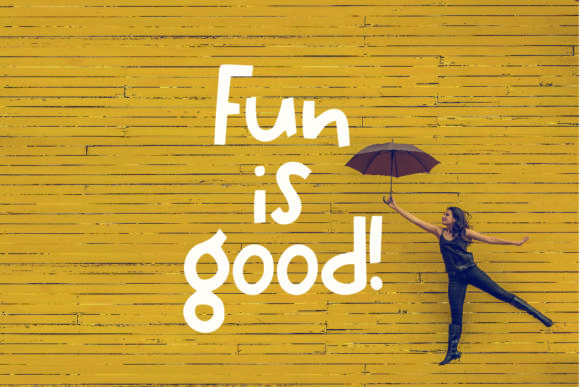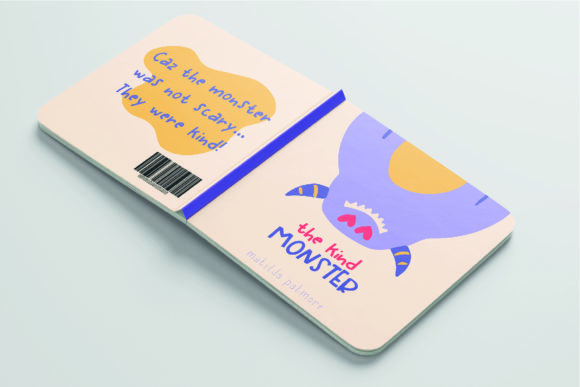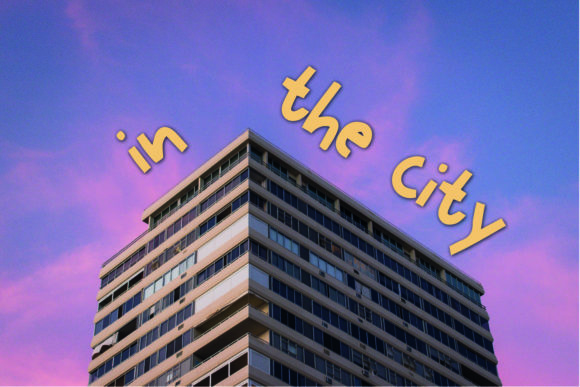
Introduction to Jarric Font
Have you ever found yourself stuck in a creative rut, struggling to bring your ideas to life? Perhaps you’ve stared blankly at a blank canvas, or scrolled through your social media feeds for inspiration. For designers, moments like these are all too common. But what if I told you there’s a font that could change all that?
Enter the Jarric Font, a chic, playful, and cute display font that’s about to become your new best friend. With its high-quality design and transparent background, this font is the perfect addition to any creative project. Whether you’re working on a design project, crafting a social media post, or simply want to add some flair to your documents, the Jarric Font is sure to elevate your work.
Key Features of Jarric Font
- Features a transparent background, ideal for overlaying on images or videos.
- Includes a range of styles and weights to cater to various design needs.
- Designed for use at high resolutions, making it perfect for large-scale prints and digital displays.
- Supports a wide range of languages, making it a versatile font for global designs.
Honest Review: Jarric Font
As a designer, I’m always on the lookout for high-quality design resources to elevate my creative projects. Recently, I had the chance to work with the Jarric Font, and I’m excited to share my honest review with you.
What works well: ✨ The Jarric Font is a stunning addition to any design project. Its unique blend of modern and vintage elements makes it perfect for creating visually appealing and eye-catching designs. The font is also incredibly versatile, making it suitable for a wide range of applications, from branding to typography.
- High-quality design with a transparent background
- Perfect for creative projects that require a unique touch
However, I do have to mention some limitations: ⚠️ While the Jarric Font is an excellent choice for many design projects, it may not be suitable for all applications. The font’s unique style may not be to everyone’s taste, and it’s essential to consider your target audience before using it.
Overall, I’m thoroughly impressed with the Jarric Font. Its high quality, versatility, and free download make it an excellent addition to any designer’s toolkit. If you’re looking for a unique and creative font to elevate your design projects, I highly recommend giving the Jarric Font a try.
Tips for Getting the Most Out of Jarric Font
Use the Jarric Font in conjunction with other design resources to create a unique and creative project. Experiment with different font sizes, colors, and effects to achieve the desired look. Use the transparent background feature to add depth and interest to your design.
The Jarric Font is a versatile font that can be used in a variety of creative projects, including infographics, presentations, and marketing materials. It is also a great font to use in social media posts and blogs. The transparent background feature makes it easy to use in conjunction with other design elements to create a visually appealing design.